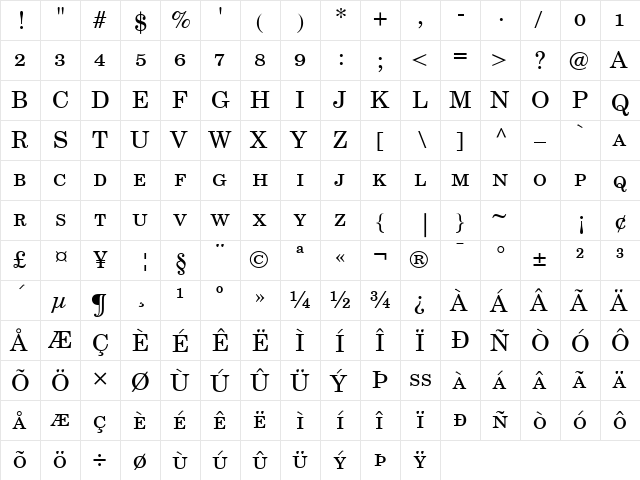
New Century Schlbk SC Regular
New Century Schlbk SC offers clean, dependable letterforms without strong stylistic allegiance, making it a practical choice for designers who need flexibility.